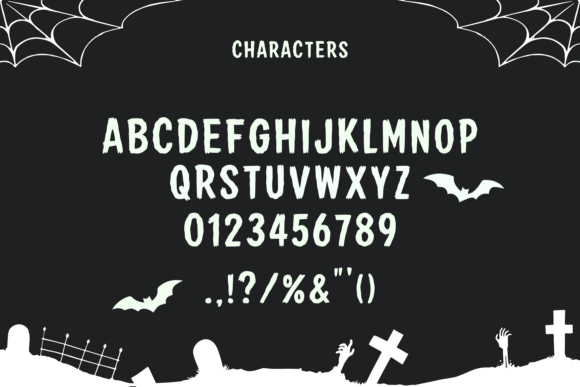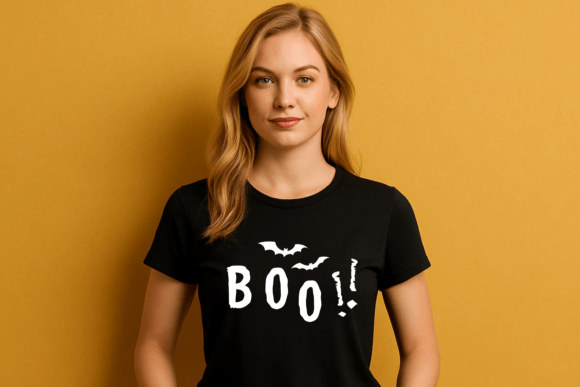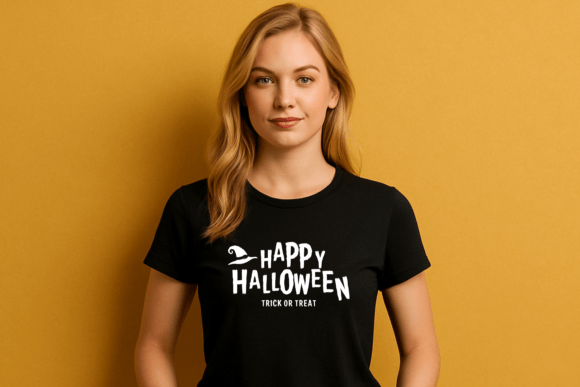
Happy Scary Halloween Font: Add a Touch of Horror to Your Designs
Are you looking for a font that can add a spooky touch to your Halloween designs? Look no further than the Happy Scary Halloween font. This bold, spooky font features thick, drippy letters that are perfect for creating creepy Halloween party invitations, scary T-shirt designs, haunted house flyers, horror movie posters, eerie stickers, or spooky social media posts.
What Makes Happy Scary Halloween Font So Special?
The Happy Scary Halloween font has a unique, rough, and hand-drawn style that makes it look like melting slime or dripping blood. This font is ideal for anyone searching for a scary font, horror font, creepy font, dripping font, or spooky Halloween lettering. The font’s drippy letters add an instant horror vibe to any project, making it perfect for designers and crafters who want to create spooky and eye-catching designs.
Uses for Happy Scary Halloween Font
The Happy Scary Halloween font is versatile and can be used for a variety of projects, including:
- Creepy Halloween party invitations: Create spooky and inviting invitations that will set the tone for your Halloween party.
- Scary T-shirt designs: Design eye-catching T-shirts that will make a statement at any Halloween party.
- Haunted house flyers: Create flyers that will draw people in and make them want to experience your haunted house.
- Horror movie posters: Design posters that will make your horror movie look terrifying and irresistible.
- Eerie stickers: Create stickers that will add a spooky touch to any project or surface.
- Spooky social media posts: Use the Happy Scary Halloween font to create social media posts that will grab attention and create a spooky atmosphere.
DIY Crafts and Halloween Decorations
The Happy Scary Halloween font is also perfect for DIY crafts and Halloween decorations. You can use the font to create printable signs, banners, and other decorations that will add a touch of fright to your Halloween celebrations. Some ideas include:
- Printable signs: Create signs that say “Beware of the Zombies” or “Welcome to the Haunted House.”
- Banners: Design banners that feature spooky phrases or creepy images.
- Halloween decorations: Use the font to create decorations such as spider webs, ghostly figures, or jack-o-lanterns.
Why Choose Happy Scary Halloween Font?
There are many reasons why you should choose the Happy Scary Halloween font for your designs. Here are a few:
- Unique and eye-catching: The font’s drippy letters and rough, hand-drawn style make it unique and eye-catching.
- Versatile: The font can be used for a variety of projects, from Halloween party invitations to horror movie posters.
- Spine-tingling: The font’s spooky vibe is sure to send shivers down the spines of your audience.
If you’re looking for a font that can add a touch of horror to your designs, look no further than the Happy Scary Halloween font. With its bold, drippy letters and rough, hand-drawn style, this font is perfect for creating spooky and eye-catching designs. Whether you’re a designer or crafter, the Happy Scary Halloween font is sure to be a hit with your audience. So why wait? Download the Happy Scary Halloween font today and start creating your own spooky designs.